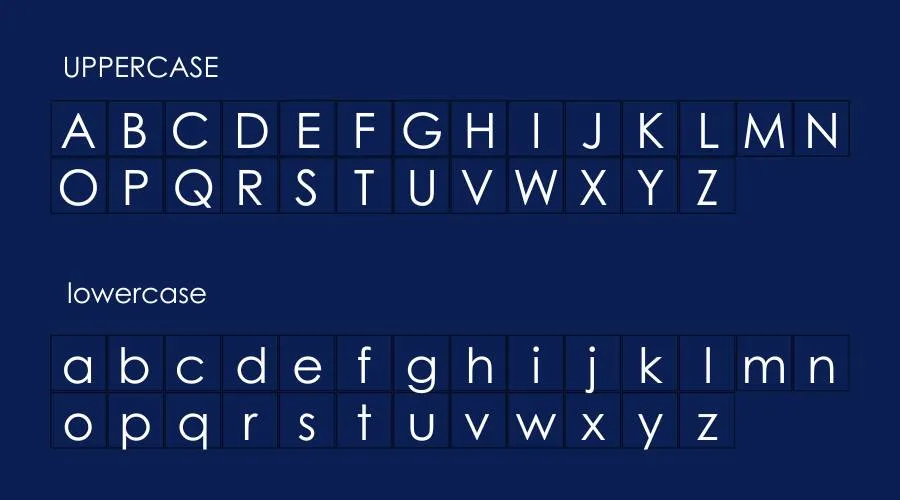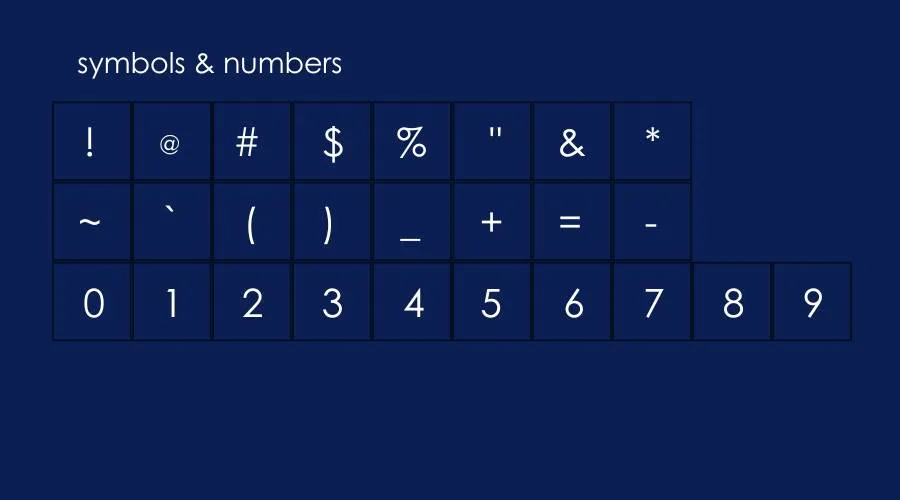
About Century Gothic Font
The Century Gothic Font is a famous texture that was published through Mono type incorporating in the 20th Century and created by a famous typographic designer named Sol Hess between 1936 and 1947. This font looks like the digital sans serif texture family in geometric styles. You can get this font free with a unique and straightforward texture look impression. It is available in both OTF and TTF file formats.
This stunning typeface is highly utilized for advertisement purposes since it releases and gained soo much popularity in a very short time due to its neat and stunning texture impression. You can change all your normal or simple textures into stylish and modern shapes with the help of its online generator tool.
Many graphic designers combine this font with the gill sans font and make elegant projects. It will make your project easy to read and understandable for visitors. It supports many international languages such as  Mandarin, Hindi, Bengali, Spanish, French, Russian, Arabic, and English.
This attractive typeface has a neat and simple texture that is still utilized in various kinds of designs and projects. It is the perfect choice for making headings, titles, banners, birthdays, T-shirt designs, Pana flex, wishes cards, invitation cards, and shop names. Its bold texture is also suitable for making magazines, newspapers, and posters.
It comes with different kinds of characters as well as uppercase letters, numerals, digits, symbols, signs, and punctuations. You may also utilize this font for cloth printing, advertisers, invitation card designs, birthday card designs, presentations, websites, and articles.
Century Gothic Font View
Is Century Gothic A good font?
Yes! It is a good texture and is also suitable for long and short paragraphs because it has a neat and good-looking texture look impression for the visitors.
What is Century Gothic font used for?
Many graphic designers utilize this font for logo designs, posters, banners, social media posts, and advertisements.
What classification is Century Gothic font?
This font looks like the digital sans serif texture family in geometric styles. You can get this font free with a unique and straightforward texture look impression.
What font goes well with Century Gothic?
The arial arm st font goes well with this gorgeous typeface.